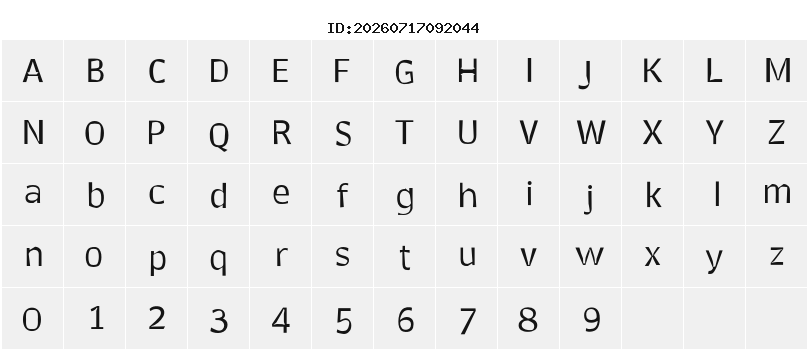
Bounce Preview
• Font Name: Bounce
• Full Font Name: Bounce
About Bounce.otf
Bounce.otf is a modern, elegant sans-serif font designed for ultimate readability and visual harmony. Perfect for branding, headlines, web design, and print materials.